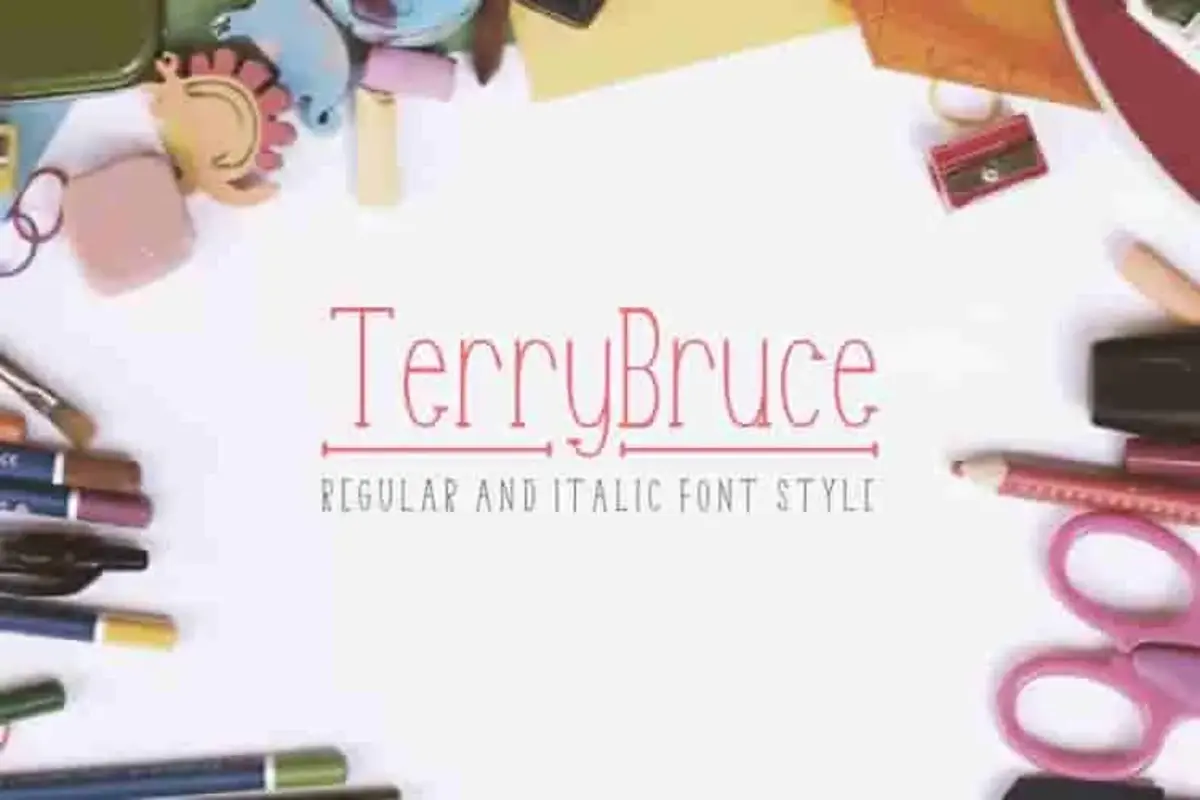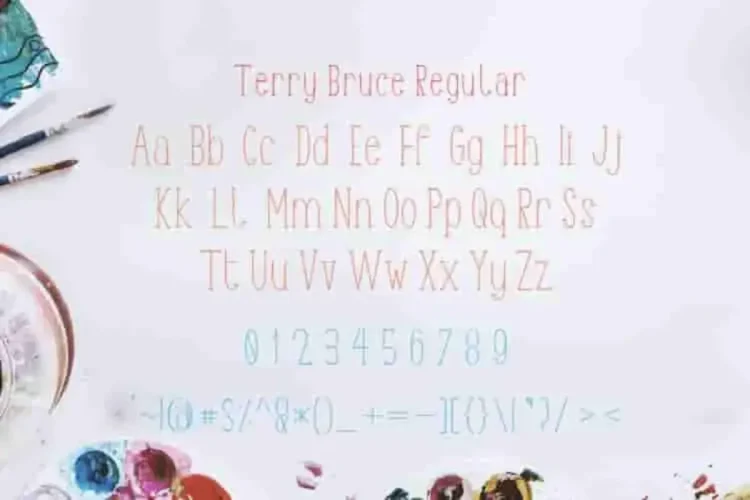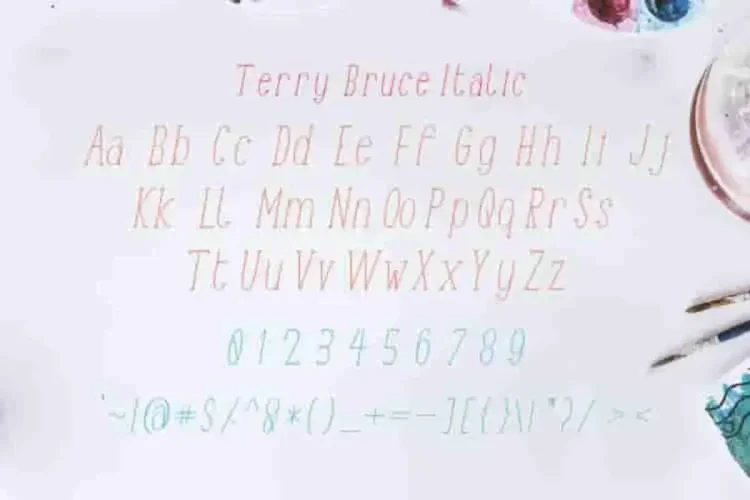
TerryBruce Sans Serif Fonts
Say hello to TerryBruce, a custom-made sans serif display font that embraces imperfection and turns it into a striking visual statement.
Yeah, this is a new kind. See the edge, see the round, the shape of this typeface is like never seen before. It’s Imperfect, that’s why it’s beautiful. There’s nothing perfect in this world, but this is a beautiful one.
It’s a sans-serif font, it’s a custom made, uniquely exclusive :)
This is not your average sans serif. With its irregular shapes and artistic touch, TerryBruce offers a fresh, handcrafted feel making it the perfect choice for bold headlines, branding projects, logo design, modern stationery, quote posts, and unique social media content.
Whether you’re designing for fashion, personal branding, or digital content, this font adds an edge of uniqueness while still maintaining legibility and structure. It’s perfect for creatives who want their work to stand out with confidence.
• One-of-a-kind custom sans serif style
• Imperfect shapes that create a handcrafted, artistic feel
• Perfect for display purposes: headlines, quotes, packaging, and logos
• A great match for creative industries and bold visual identities